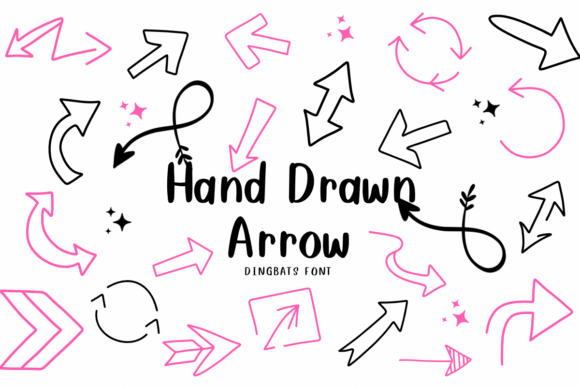
Adding Direction to Your Designs
Have you ever stared at a blank page, desperate for the perfect visual element to bring your creative vision to life? For designers, this moment of inspiration is a familiar feeling, and the right font can make all the difference. That’s where the Hand Drawn Arrow Font comes in – a playful dingbats font that adds a touch of whimsy and personality to your layouts.
With its wide variety of sketched arrow styles, from bold blocky pointers to twirly, whimsical curves, this font is perfect for planners, infographics, social media visuals, bullet journals, and creative presentations. The unique designs make it easy to add emphasis and personality to your layouts, taking your designs from ordinary to extraordinary.
Key Features of Hand Drawn Arrow Font
- Unique Hand-Drawn Design: This font features a distinctive, hand-drawn design that adds a touch of personality to any text.
- Customizable Arrows: The font includes a range of customizable arrow styles, allowing designers to create unique and engaging visual effects.
Designer Review: Hand Drawn Arrow Font
I was excited to dive into the Hand Drawn Arrow Font, and overall, I’d say it’s a solid addition to any design library. ✨
- Expressive and whimsical feel: The font’s hand-drawn aesthetic brings a touch of personality to any design.
- Good for headings and titles: The font’s bold lines and playful curves make it perfect for grabbing attention in headings and titles.
- Easy to read: Despite its unique style, the font remains legible, making it suitable for body text as well.
However, there are some limitations to consider. ⚠️
- May not be suitable for formal designs: The font’s playful nature might not be the best fit for formal or professional designs.
- May not be ideal for small text sizes: The font’s bold lines and thick strokes might become too overwhelming at small text sizes.
Overall, I’d give the Hand Drawn Arrow Font a solid 4 out of 5 stars. It’s a great addition to any design library, but it’s essential to consider its limitations before using it in your next project.
Getting the Most Out of the Hand Drawn Arrow Font
To get the most out of the Hand Drawn Arrow Font, try combining it with other creative elements, such as illustrations or graphics. Experiment with different font sizes and colors to create visual interest.
The Hand Drawn Arrow Font is ideal for:
- Infographics and data visualizations.
- Marketing materials, such as brochures and flyers.
- Web design and digital interfaces.
- Education and training materials.
- Use Hand Drawn Arrow Font for headings and subheadings to add a playful touch.
- Create arrows to point out attractions and activities in the destination.
- Combine with hand-drawn illustrations of landmarks and scenery to add a personal touch.
- Pair Hand Drawn Arrow Font with a bold, sans-serif font for headings and body text.
- Use watercolor textures and patterns to give the brochure a vintage feel.
- Include maps and guides to help travelers navigate the destination.
- Use Hand Drawn Arrow Font to create arrows that point to key statistics and facts.
- Create a visual hierarchy by using different sizes and colors of Hand Drawn Arrow Font.
- Combine with icons and graphics to make the infographic more engaging.
- Pair Hand Drawn Arrow Font with a clean, sans-serif font for body text.
- Use a limited color palette to focus attention on key information
Project Ideas Using Hand Drawn Arrow Font
Create a visually appealing travel brochure that showcases a destination’s unique charm using Hand Drawn Arrow Font.
How to use Hand Drawn Arrow Font:
Project 2: Infographic for a Non-Profit Organization
Create an eye-catching infographic that highlights a non-profit organization’s mission and impact using Hand Drawn Arrow Font.